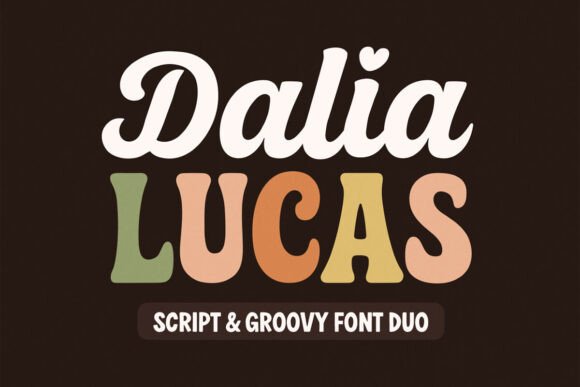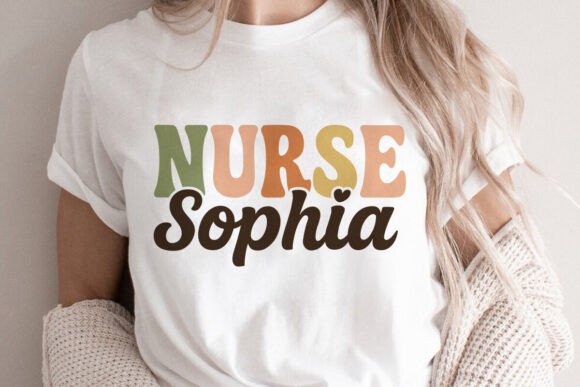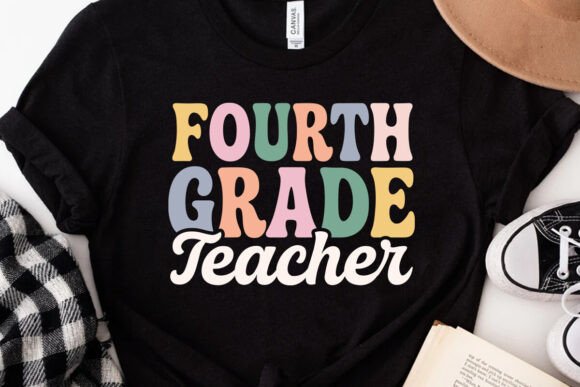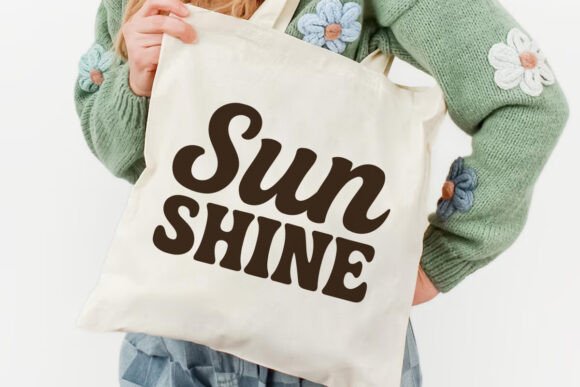
Dalia Lucas Font: 70s Retro Groovy Script & Display Font Duo for Cricut & Branding
About the Dalia Lucas Font
From logos to headlines, the Dalia Lucas Font is the perfect choice for making a lasting impression. Dalia Lucas is a script & groovy font duo and retro, boho, and fun 70s display font. Whether you’re using it for crafts, digital design, presentations, or making greeting cards, this font has the potential to become your favorite, no matter the occasion! It is the best choice for creating eye-catching logos, branding, and quotes. Add it to your most creative ideas, and notice how it makes them come alive!
Dalia Lucas thrives in display applications such as logos, headlines, short quotes, and posters where its retro-inspired charm can shine. Its playful energy makes it ideal for brands targeting a younger demographic or those with a bohemian aesthetic. Avoid using it for body text or lengthy paragraphs; its script nature hinders readability in smaller sizes.
Pairing Dalia Lucas with a clean sans-serif like Montserrat for body copy provides excellent contrast and visual balance. For a more vintage feel, consider a geometric sans-serif such as Futura or a classic serif like Garamond. These pairings offer a sophisticated counterpoint to Dalia Lucas’s groovy personality.
The font’s overall personality is best described as fun, retro, and slightly rebellious, making it well-suited for projects that evoke a sense of nostalgia and carefree energy.
Dalia Lucas Font Usage Examples